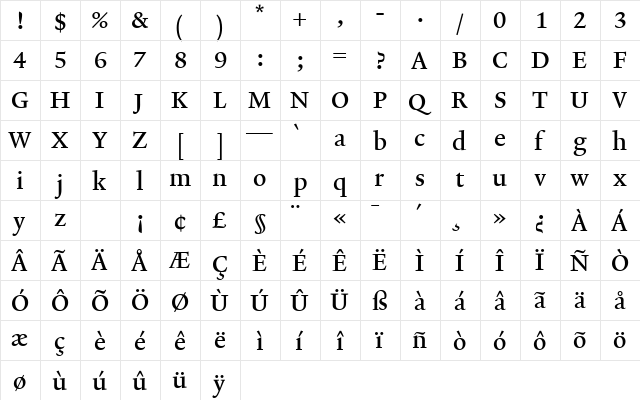
Lexicon No2 Roman B Tab Font Preview
Lexicon No2 Roman B Tab
Design Context for Lexicon No2 Typeface
Lexicon No2 offers clean, dependable letterforms without strong stylistic allegiance, making it a practical choice for designers who need flexibility.